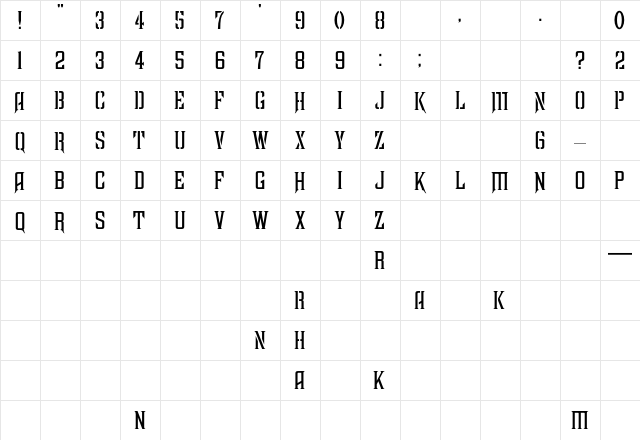
LHF New Visigoth Regular
Foundry: Arthur Baker for Letterhead Fonts
Designer: Arthur Baker for Letterhead Fonts
Design Context for LHF New Visigoth
LHF New Visigoth is a composed and adaptable typeface that performs quietly and consistently across a wide range of design contexts.